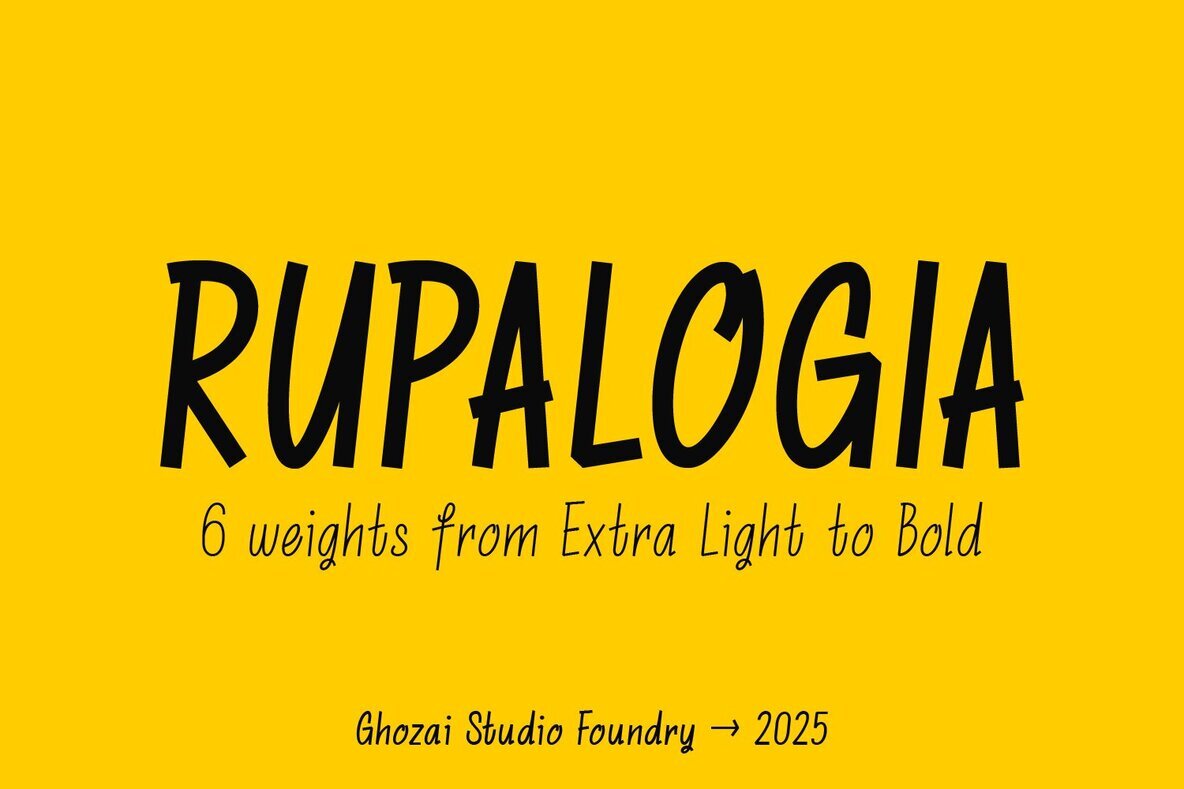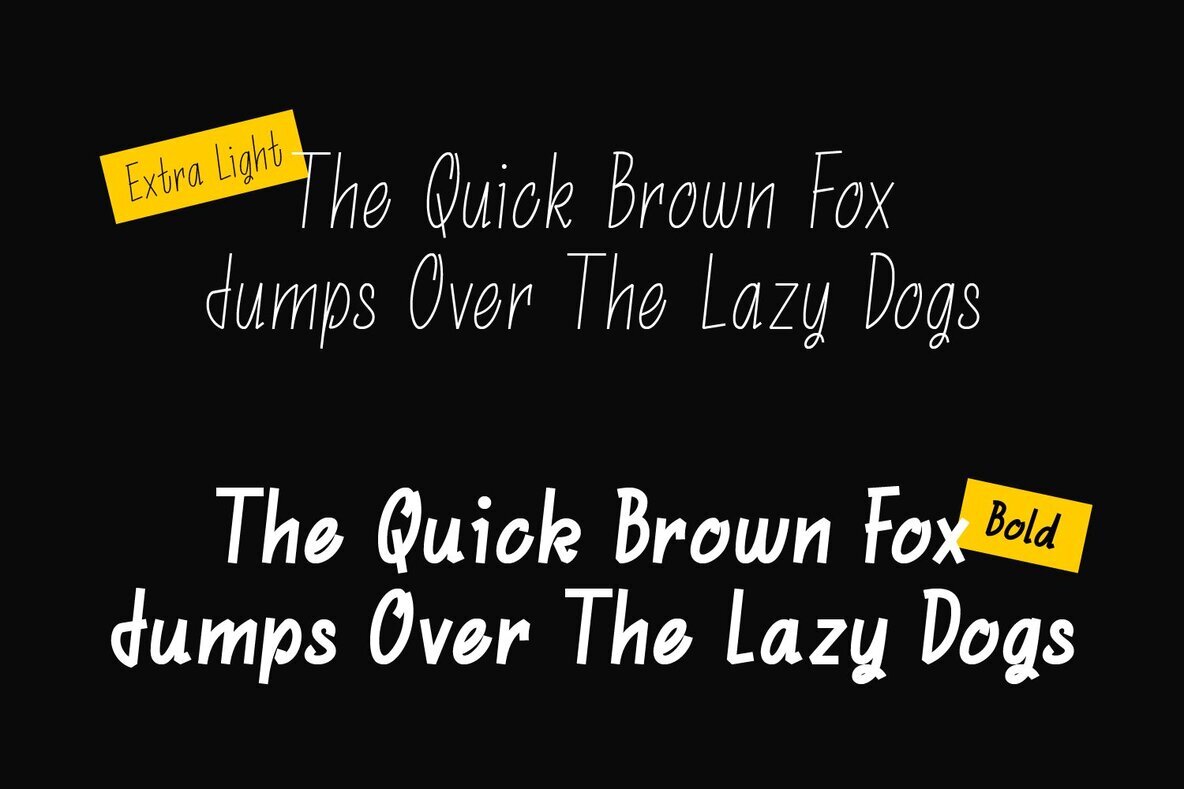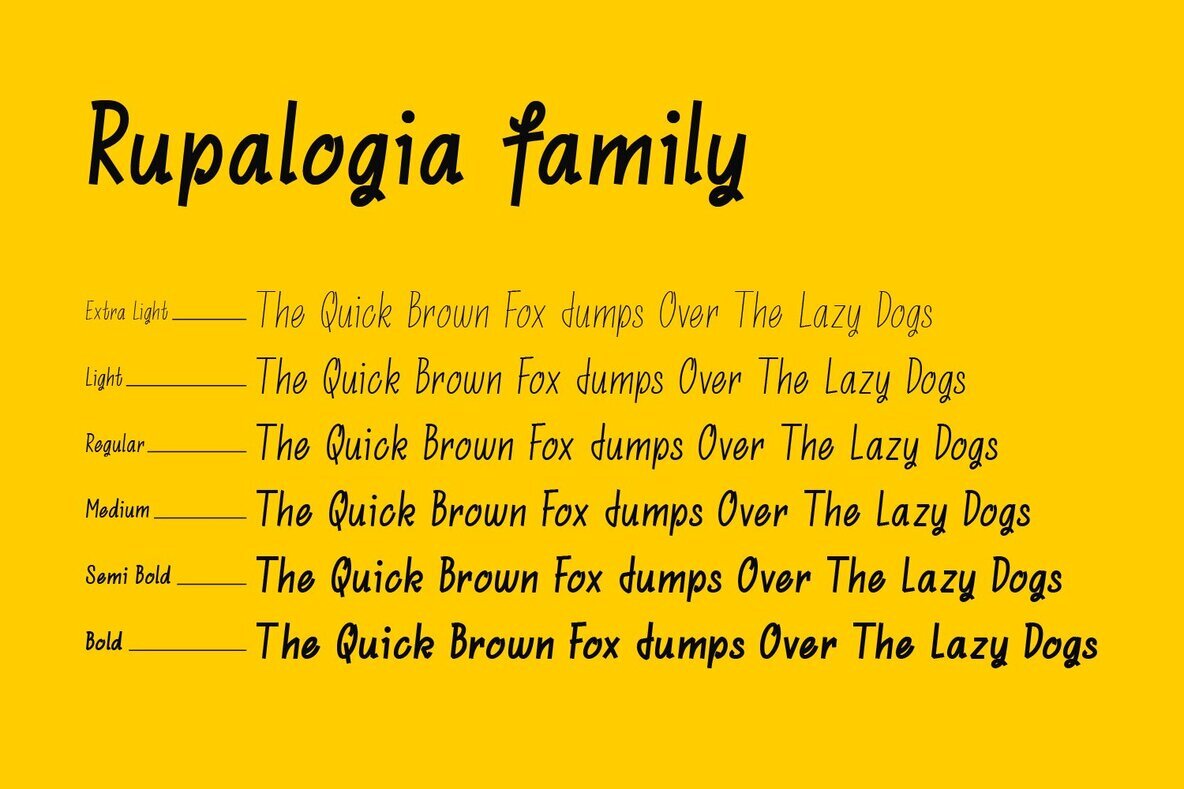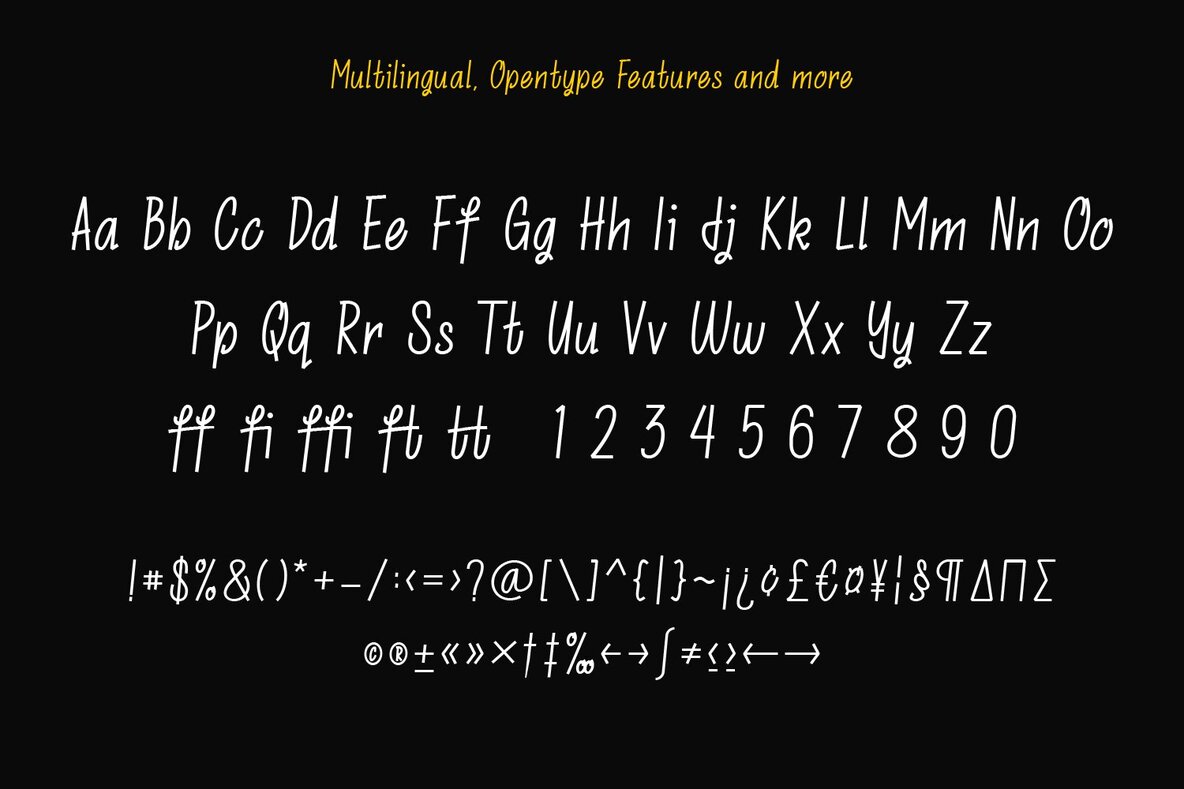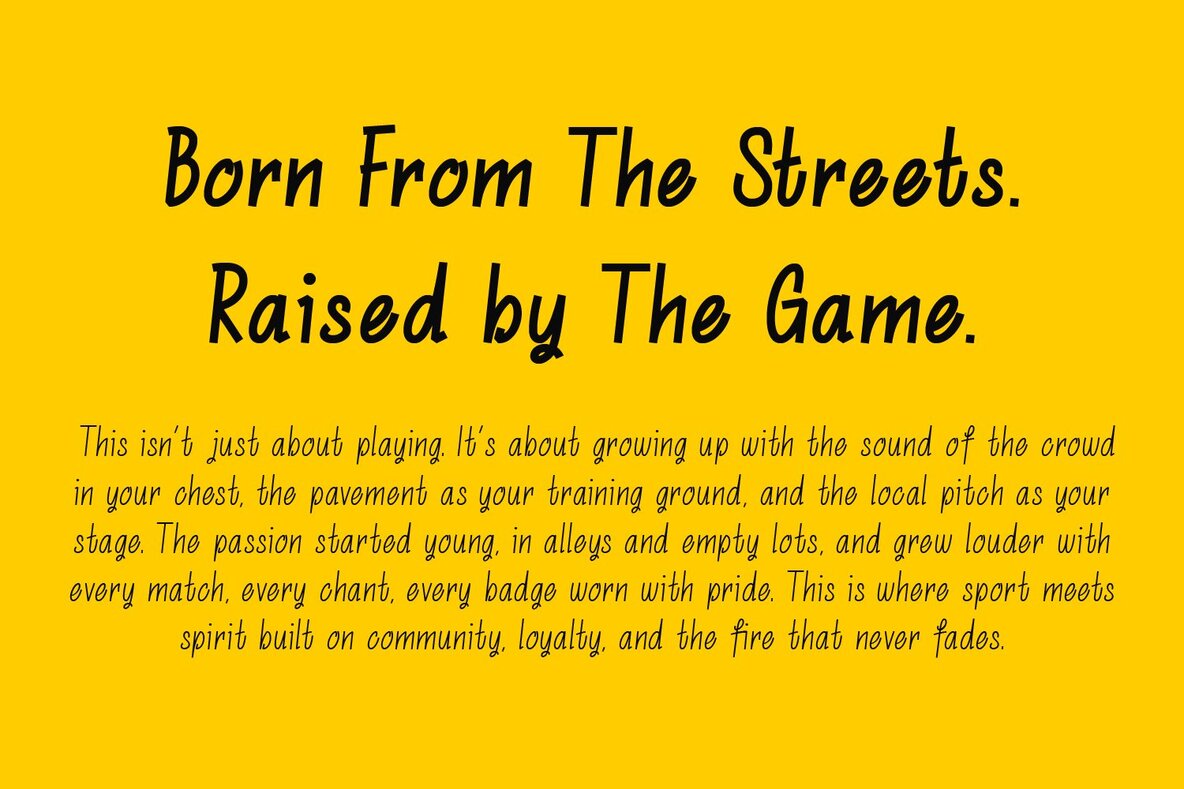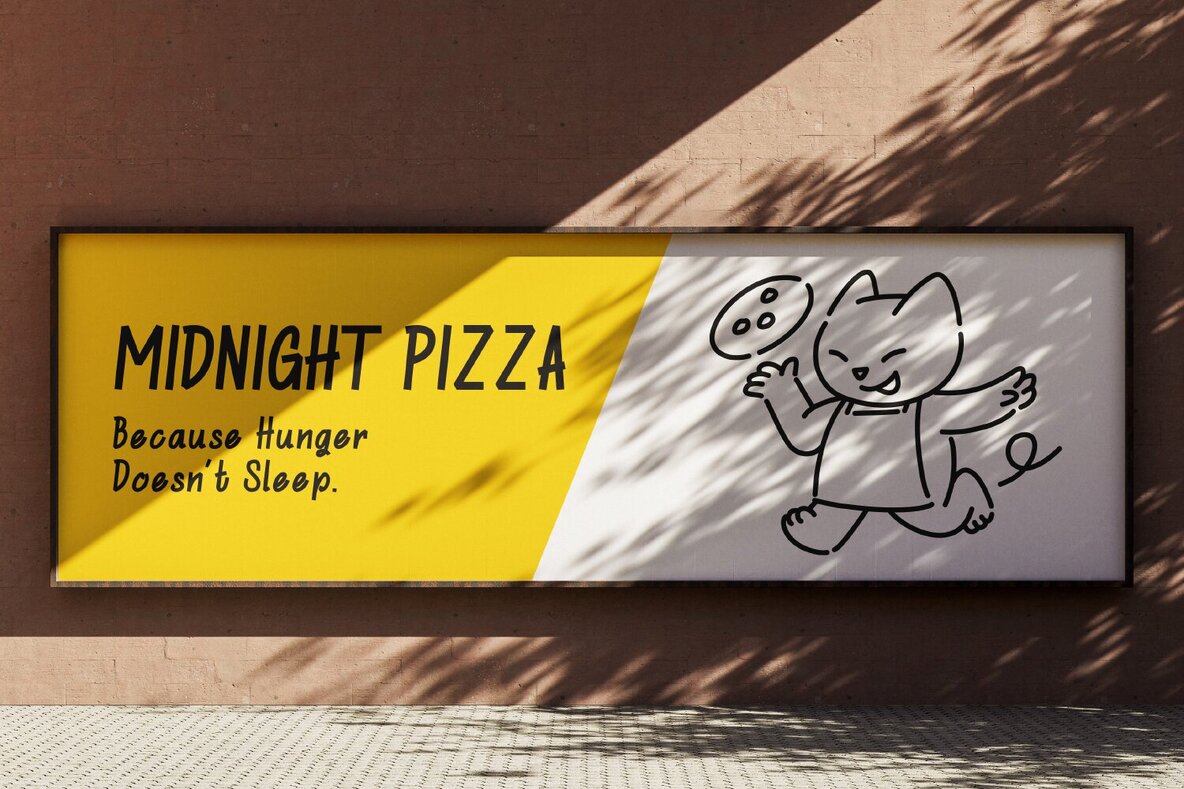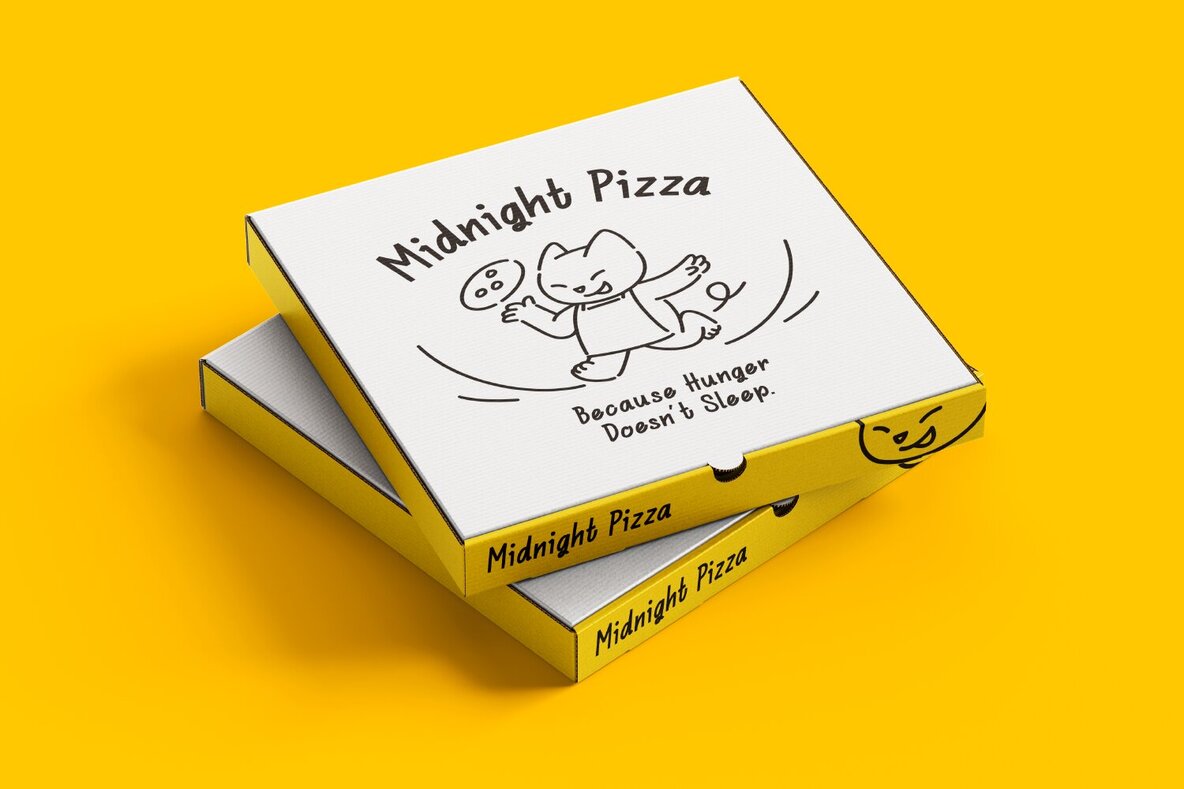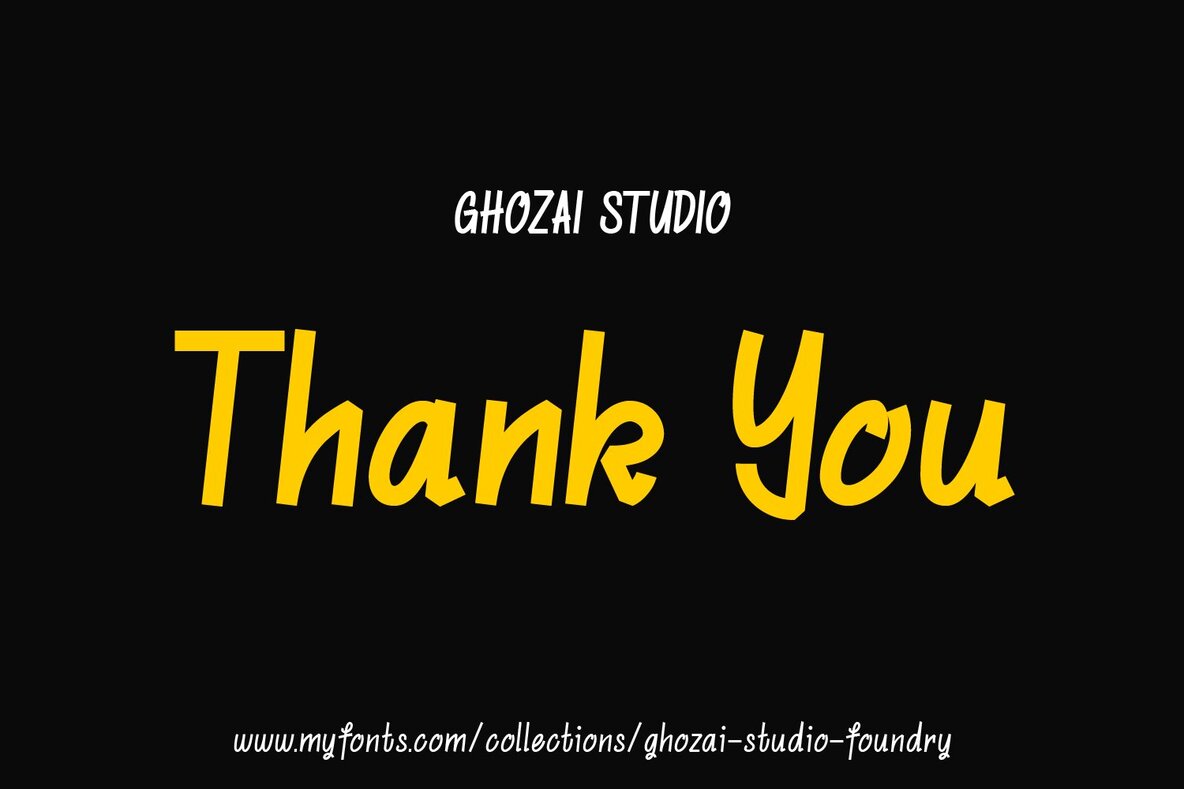
Rupalogia Font
The Rupalogia font family by Ghozai Studio brings vibrancy to your design projects with its dynamic hand-drawn style. This versatile typeface features six distinct weights, ranging from Extra Light to Bold, offering a spectrum of choices for your creative needs. With comprehensive OpenType features and multilingual glyph support, Rupalogia excels in versatility, catering to diverse languages and design requirements. Perfect for an array of applications, from eye-catching display designs to branding, signage, and festival posters, Rupalogia's fun, handwriting-inspired style complements any project. The fluid and adaptable design makes it an excellent choice for creating impactful headlines, distinctive logos, and clear signage. This font's flexibility allows it to blend seamlessly with different design aesthetics, providing a bold and contemporary touch to your work.Rupalogia: Dynamic Hand-Drawn Font Family
Versatile and Fun Handwriting Style